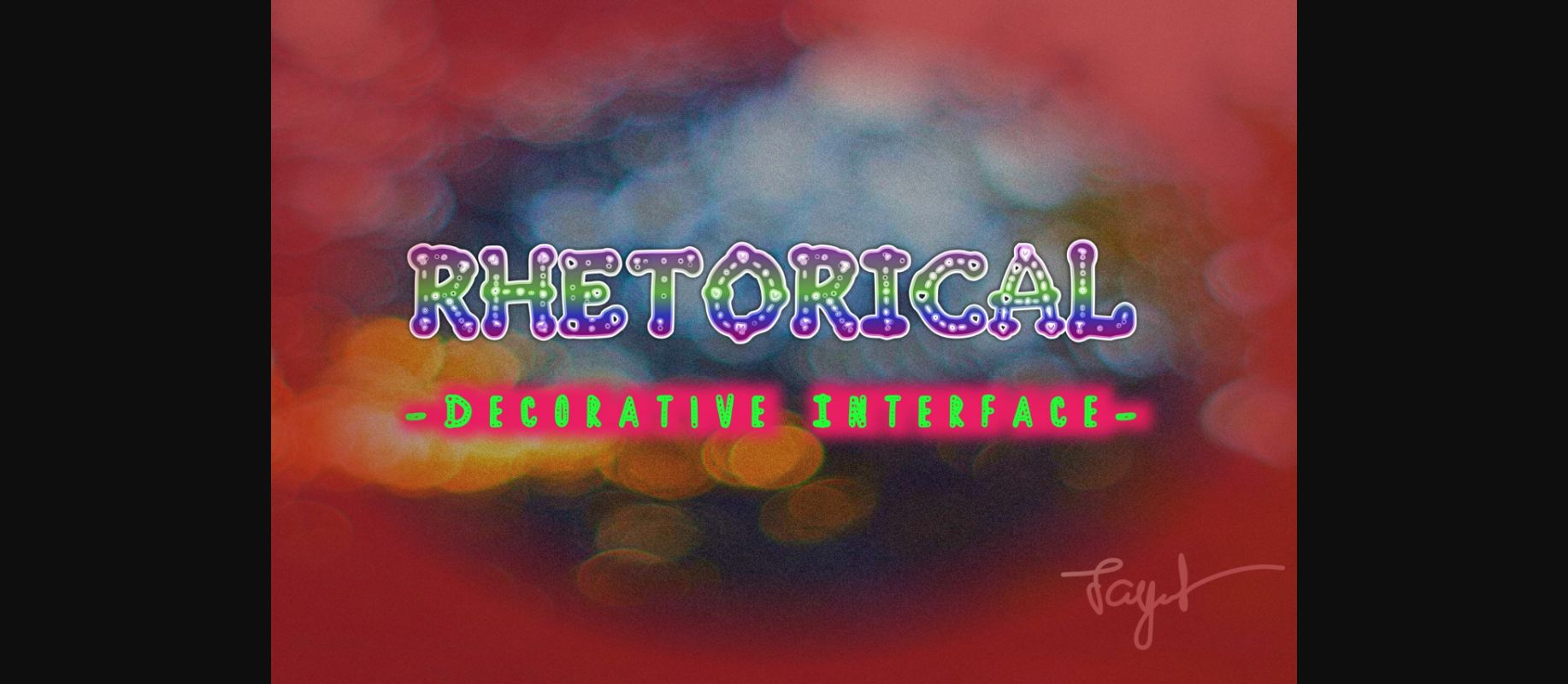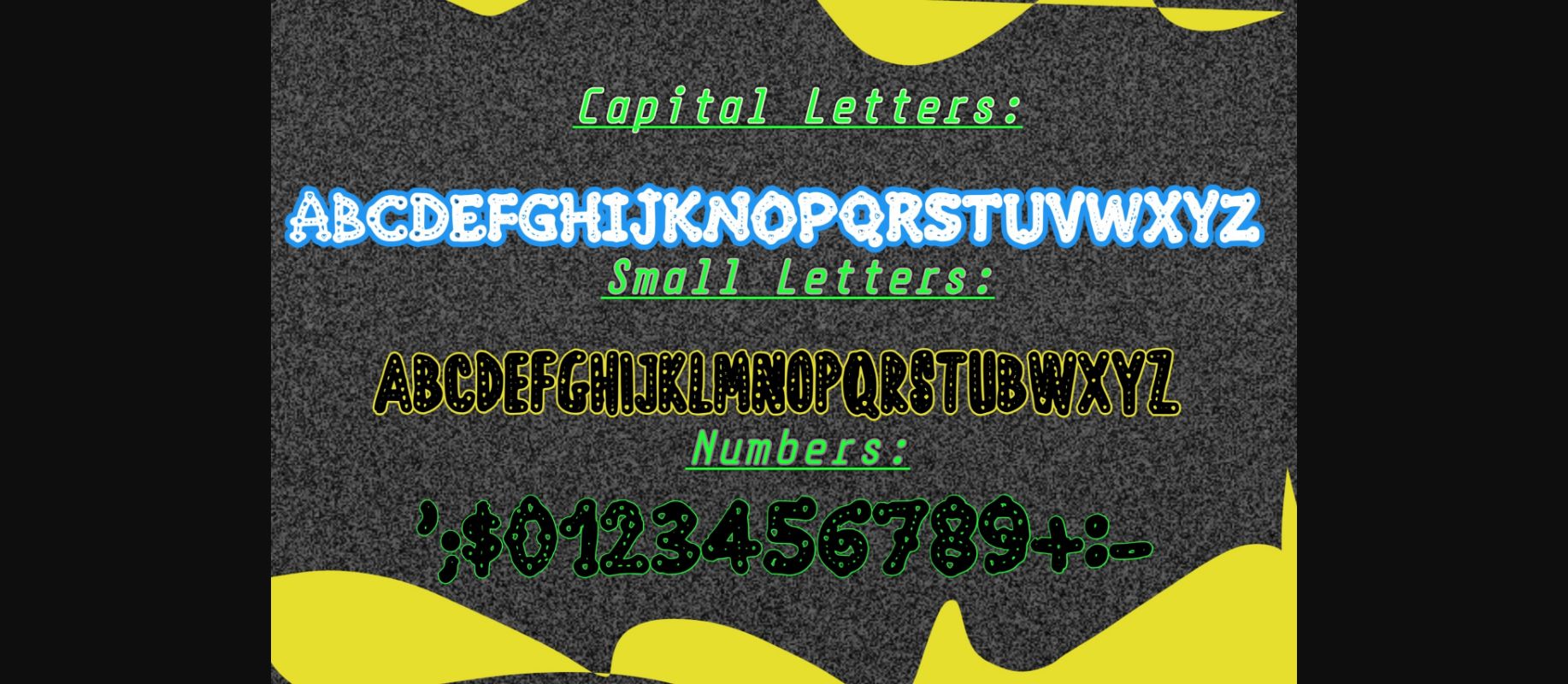
About Rhetorical Font
Rhetorical is an unique and quirky decorative font. It will add an incredibly joyful touch to your designs.
Fall in love with its playful style and use it to create beautiful stationary art, eye-catching social media posts, and much more!